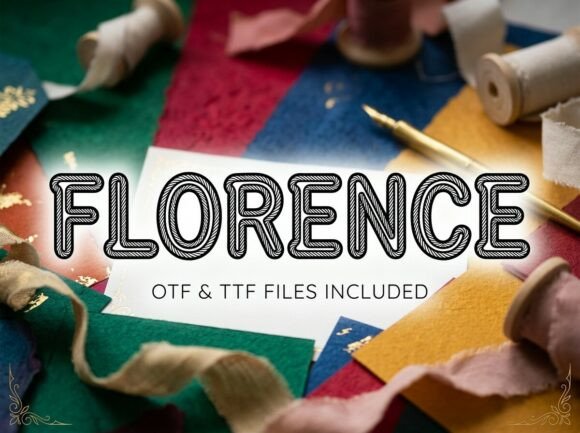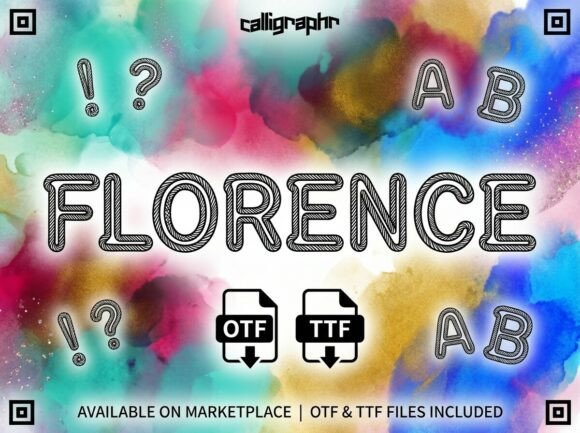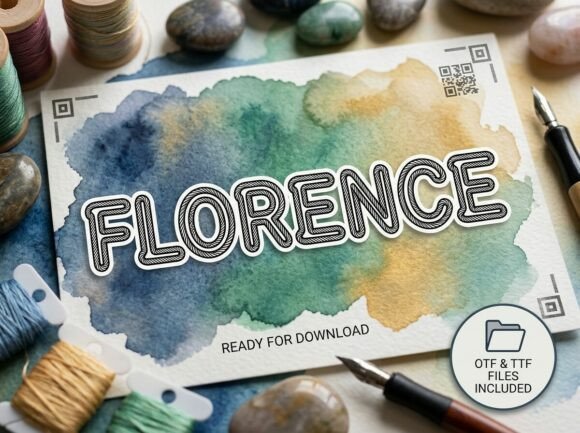
Introducing Florence Font: The Ultimate Decorative Display Font
Are you tired of using the same old fonts for your designs? Look no further than Florence Font, a stunning decorative display font that’s sure to turn heads. With its unique artistic elements and strong visual personality, this font is perfect for creators who want to break away from the ordinary and make a statement.
What Makes Florence Font Special?
Florence Font is a versatile font that’s designed to be the center of attention. Its unique artistic elements and strong visual personality make it perfect for a variety of design projects, from bold headlines and artistic logos to creative packaging. Whether you’re a graphic designer, a crafty DIY enthusiast, or a business owner looking to create a professional brand image, Florence Font is the perfect choice.
Key Features of Florence Font
• Unique Artistic Elements: Florence Font features unique artistic elements that set it apart from other fonts. Each letter is carefully crafted to make a statement and add a touch of elegance to your designs.
• Strong Visual Personality: This font has a strong visual personality that’s sure to grab attention. Whether you’re using it for a headline, logo, or packaging, Florence Font is sure to make an impact.
• Versatile: Florence Font is versatile enough for a variety of design projects. Use it for bold headlines, artistic logos, creative packaging, and more.
• Professional and Polished Finish: Despite its decorative nature, Florence Font maintains a professional and polished finish that’s perfect for businesses and designers who want to create a high-end brand image.
Important Note: All-Caps Display Typeface
IMPORTANT NOTE BEFORE PURCHASE: Florence Font is an ALL-CAPS (Uppercase Only) display typeface. This means that it does not include lowercase letters. It’s specifically designed for high-impact headlines, logos, and decorative initials where every letter is a work of art.
Why Choose Florence Font?
So why choose Florence Font over other decorative display fonts? Here are just a few reasons:
• Unique and Eye-Catching: Florence Font is a unique and eye-catching font that’s sure to grab attention. Its artistic elements and strong visual personality make it perfect for designers who want to create stunning designs.
• Versatile: Florence Font is versatile enough for a variety of design projects. Use it for bold headlines, artistic logos, creative packaging, and more.
• Professional and Polished Finish: Despite its decorative nature, Florence Font maintains a professional and polished finish that’s perfect for businesses and designers who want to create a high-end brand image.
Font Name Florence Font
Author kulturrno
If you’re looking for a stunning decorative display font that’s sure to turn heads, look no further than Florence Font. With its unique artistic elements, strong visual personality, and high-quality files, this font is perfect for designers and crafters who want to create stunning designs. Whether you’re creating bold headlines, artistic logos, or creative packaging, Florence Font is the perfect choice.